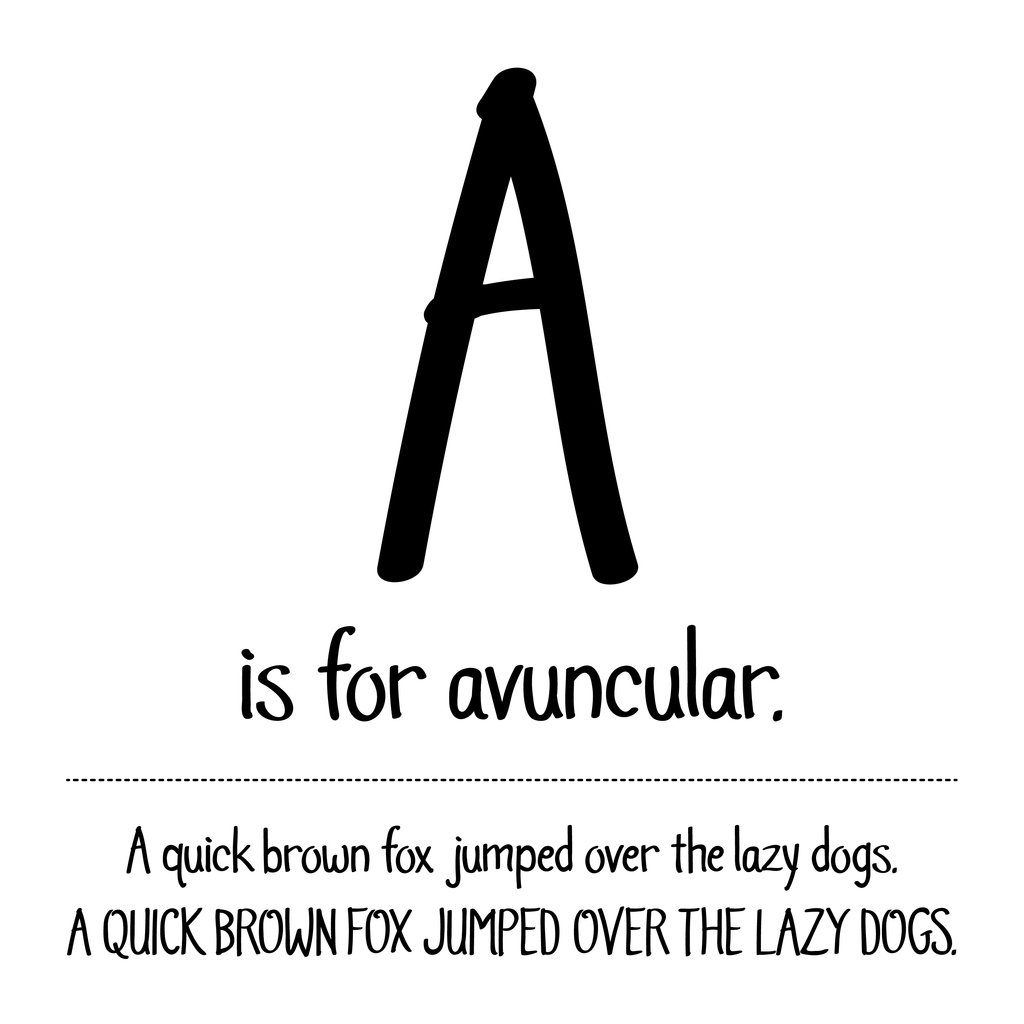
Emmerin
A compressed thin font that remains readable at small sizes, Emmerin was inspired by European chalkboard writing, which balances style with efficient use of space.
Emmerin includes uppercase and lowercase alphabet, 0-9, many special characters for for multi-language support, and punctuation.
A compressed thin font that remains readable at small sizes, Emmerin was inspired by European chalkboard writing, which balances style with efficient use of space.
Emmerin includes uppercase and lowercase alphabet, 0-9, many special characters for for multi-language support, and punctuation.